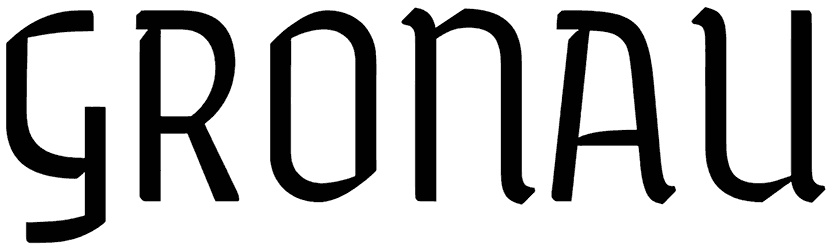
Gronau Font
Your design would be glorious and royal with this Gothic font. Gronau has unique and memorable letter faces that will cause a dominant effect.
As a modern font, this masterwork doesn’t have a numerical backup, but is still a striking image for many undertakings, from flyers and movie titles to social media posts. This fancy font with two different styles and weights comes up to brings flexibility and variety to any display.
Andrea Tartarelli discovered the letterforms that would inspire his Gronau family in a 1912 specimen by the Berlin-based Wilhelm Gronaus Schriftgießerei, that showcased the typeface Fette Reichs-Deutsch, designed by Wilhelm Gronau in 1902. Even if Gronau also cerated Art Nouveau inspired typefaces like Berolina or idiosyncratic Sütterlin “blackletter cursives” like Hohenzollern Schrift, his work mostly centres on gothic letter shapes.
Fette Reichs Deutsch, that Tartarelli digitised as Gronau Fette, sports a very broad and square structure, mild contrast and a very geometric treatment of shapes, with slightly rounded terminals, straight lines and clear 45 degree angles. This unusual, pre-modernist approach to letterform inspired Tartarelli to explore its potential for display use, with the creation of an inline version that modernises the original and pushes to the maximum its dynamic energy. Gronau inline design transforms the broad nib marks into a ribbon folding in 3d to recreate the original letterforms, adding a dynamic, sporty language to the original typeface gothic feel. With Gronau Neue, Tartarelli tried to find a contemporary, gestural interpretation of blackletter shapes, adding a slightly calligraphic look and feel to to the original hasty lines and energetic construction.
This third variant of Gronau is the one that most departs from the original mode: using generous x-height and condensed proportions, it achieves a more contemporary feel and extends the family expressive range into display, editorial and packaging options. All the versions of Gronau sport a wide range of Open type features and glyph alternates, further enriching the usage possibility of this typeface that embodies our contemporary swap culture by embracing the many subtleties and historical interpretations of blackletter typography while at the same time playfully expressing with a digital, dynamic spirit.